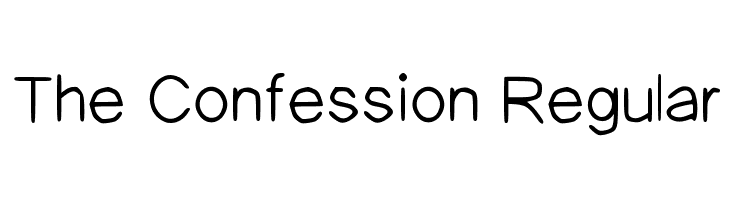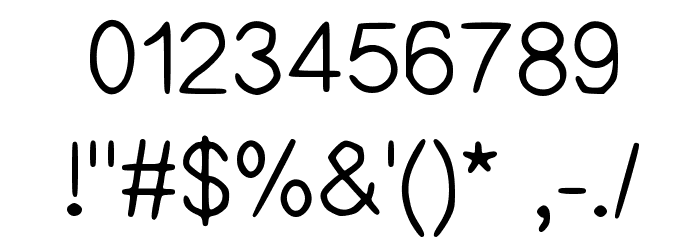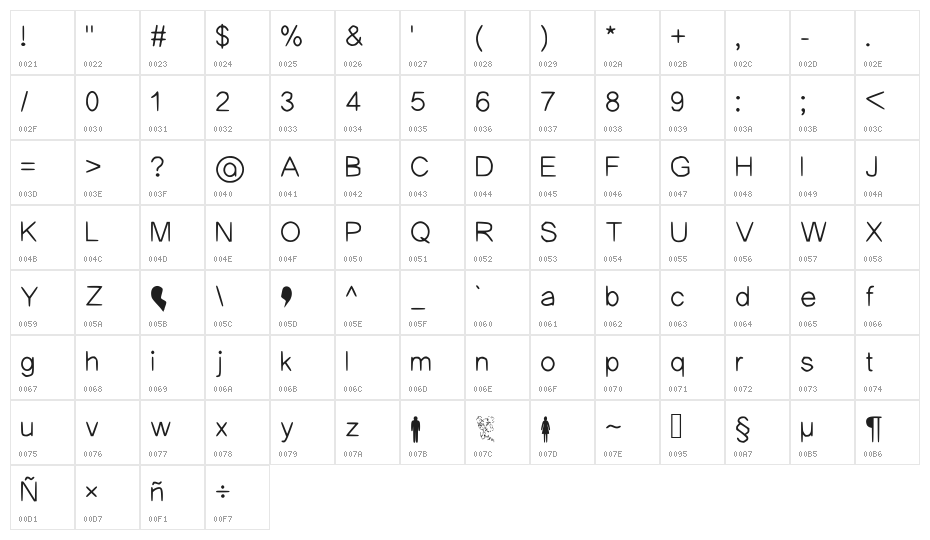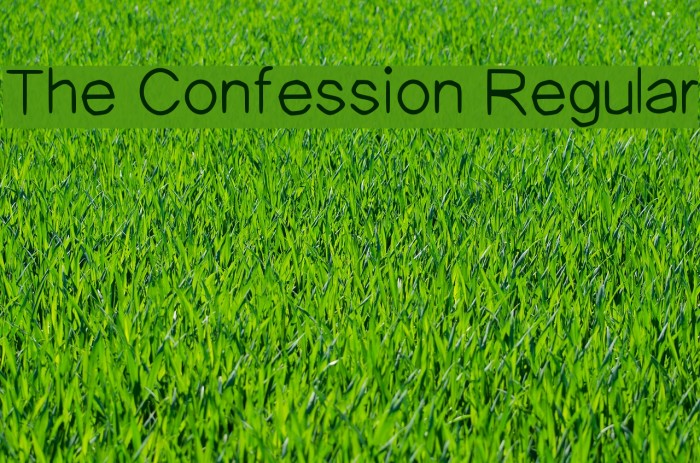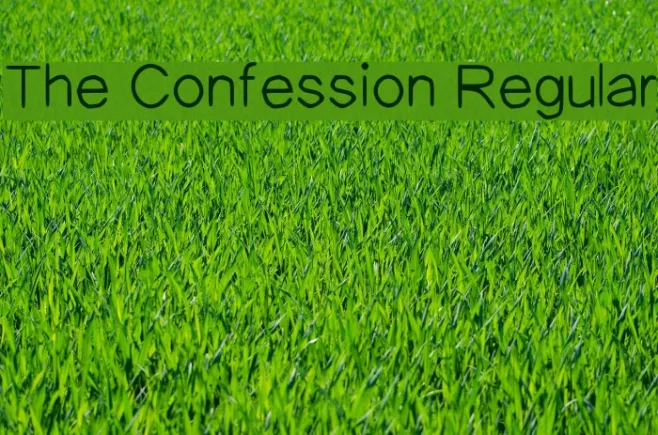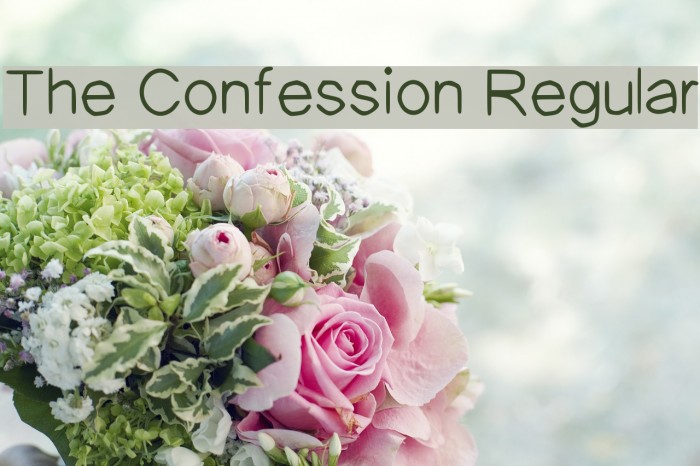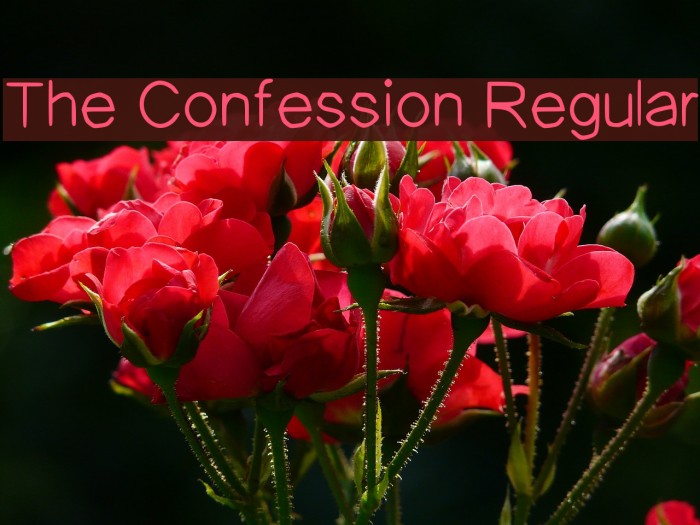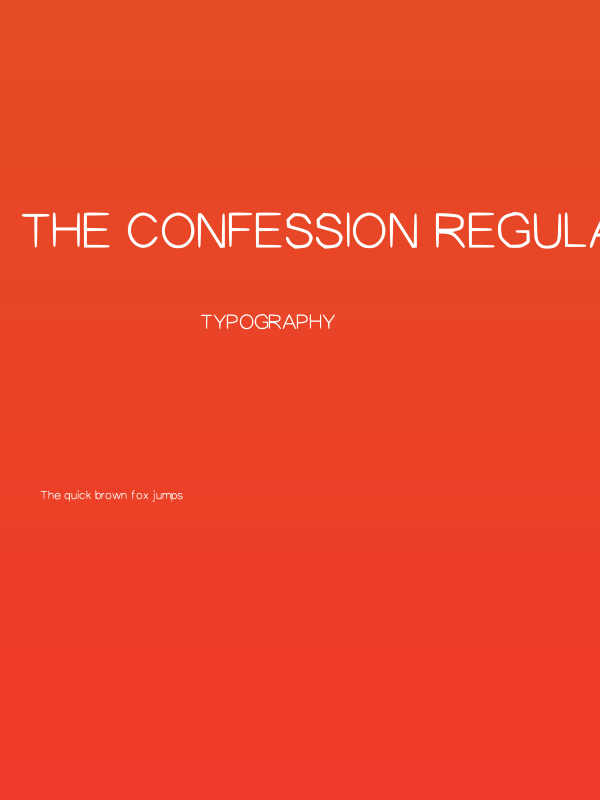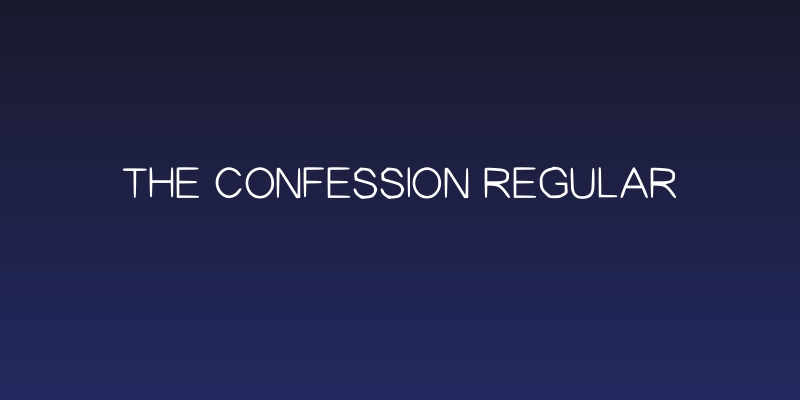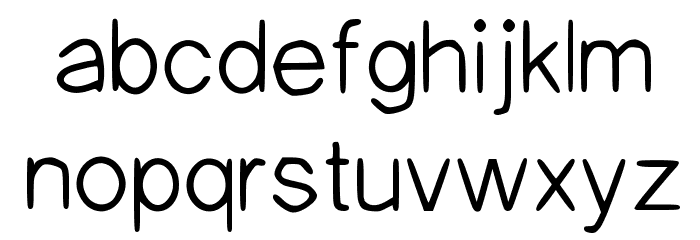
The Confession Regular Font
The Confession Regular Description
This font features a clean and modern design with rounded edges and a uniform stroke width, giving it a friendly and approachable appearance. The uppercase letters are slightly taller than the lowercase, providing a balanced and harmonious look. The numerals are clear and easy to read, making them suitable for various applications. Special characters are well-integrated, maintaining the overall aesthetic. The font's simplicity and clarity make it versatile for both digital and print media.